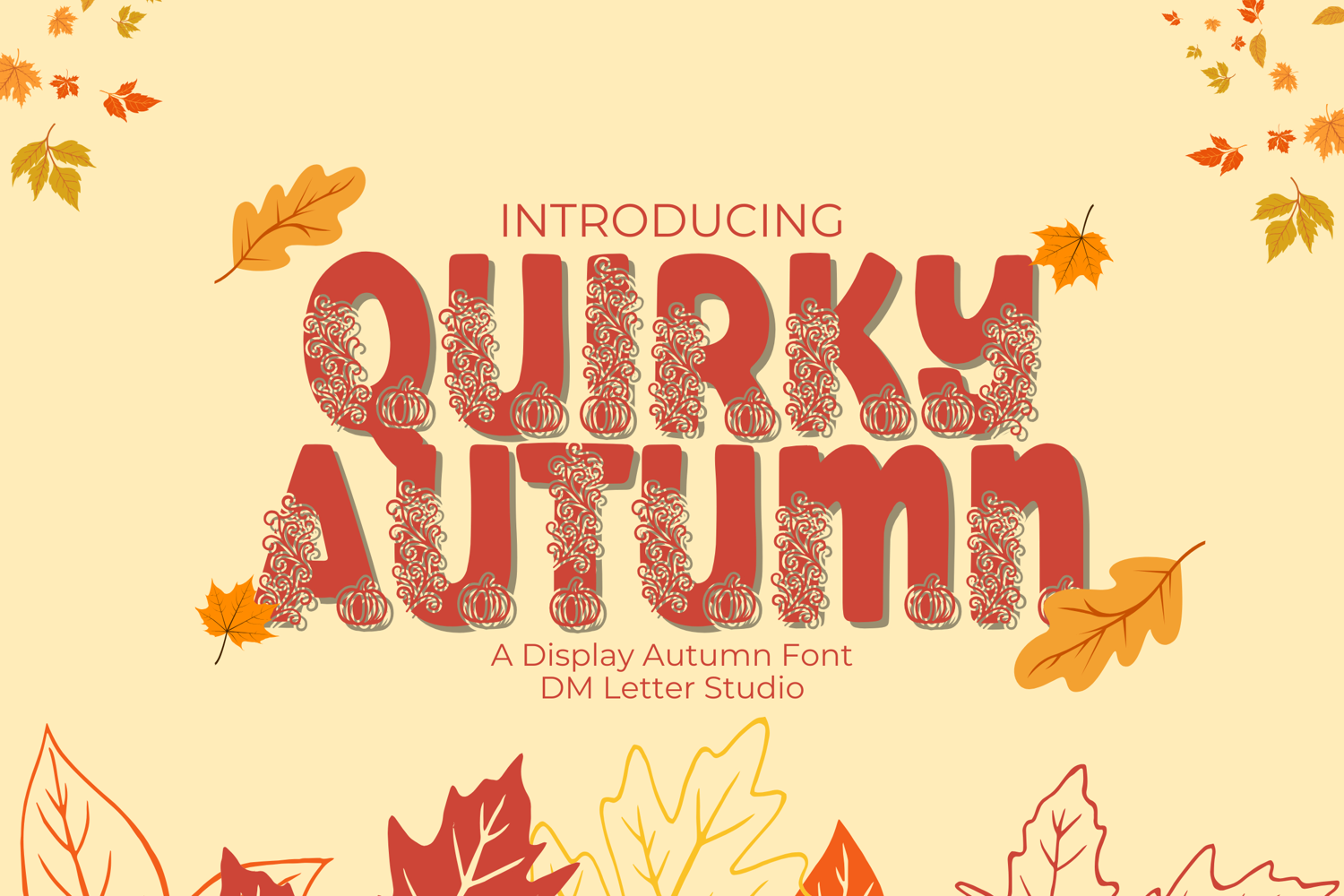
Quirky Autumn - Playful & Seasonal Display Font
Quirky Autumn
Quirky Autumn – Playful & Seasonal Display Font
Quirky Autumn is a whimsical and cozy display font inspired by the colors and feelings of fall. With its hand-drawn charm and quirky letterforms, this font is perfect for seasonal branding, fall-themed invitations, cozy apparel designs, and autumn-inspired quotes. Its playful personality captures the warm and fun essence of the season.
• Whimsical Handwritten Style: Each letter carries a playful and relaxed vibe.
• Perfect for Fall Projects: Ideal for Thanksgiving invites, seasonal decor, and autumn product packaging.
• Cozy & Playful Feel: Adds warmth and charm to any design.
• Complete Character Set: Includes uppercase, lowercase, numbers, punctuation, and multilingual support.